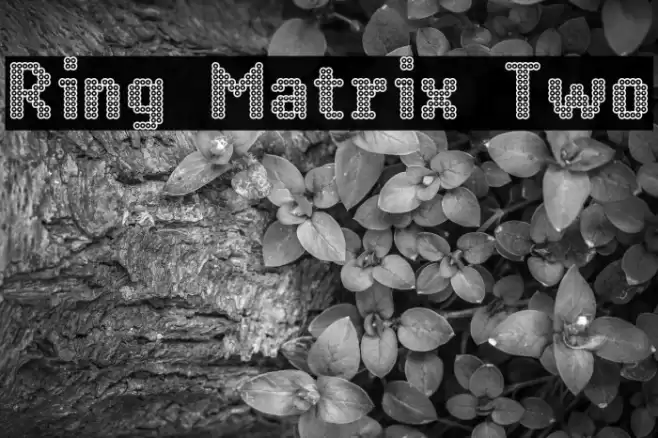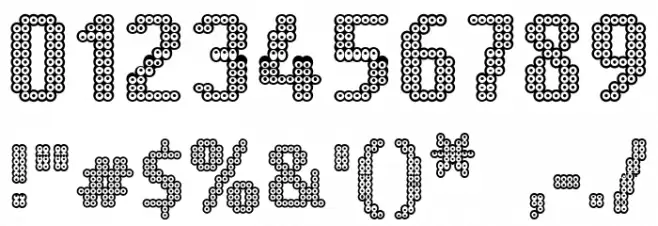
Ring Matrix Two Font
Ring Matrix Two Description
This font features a unique design where each character is composed of small, interconnected rings, creating a matrix-like appearance. The geometric structure gives it a digital and futuristic feel, reminiscent of pixel art or retro video game graphics. The uppercase and lowercase letters maintain a consistent style, with clear distinctions between each character. Numbers and special characters are equally well-defined, adhering to the same ring-based pattern. This font's playful and distinctive look makes it stand out, offering a creative twist on traditional typography.
A digital, ring-based font with a futuristic and playful design from Uncategorized fonts.